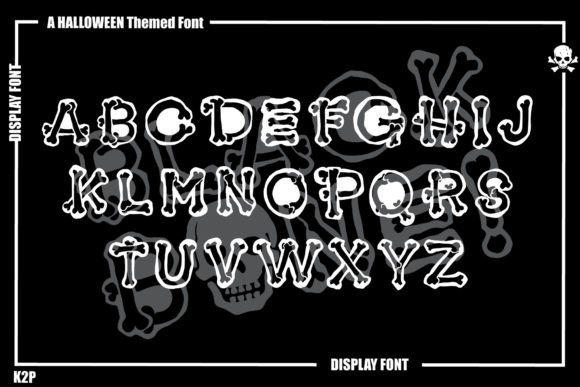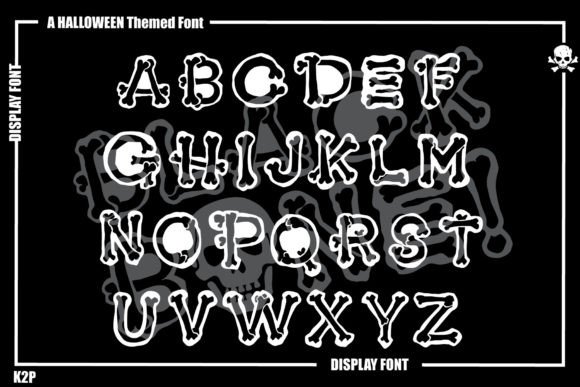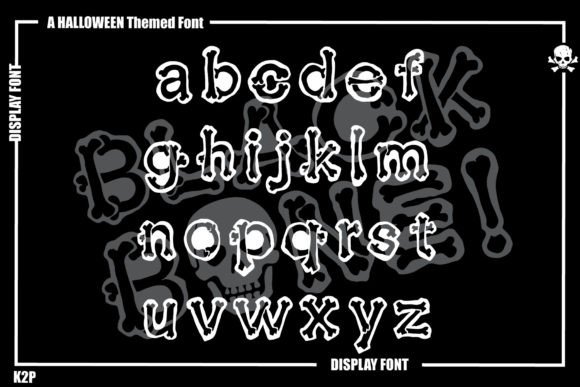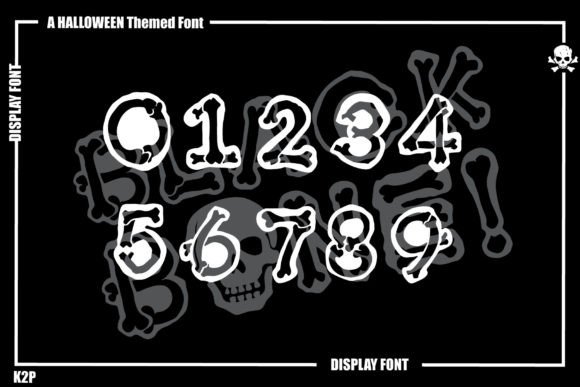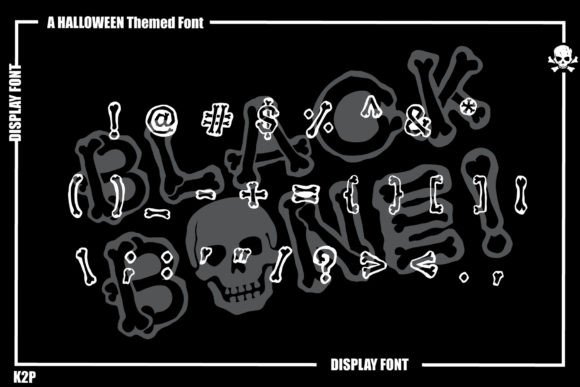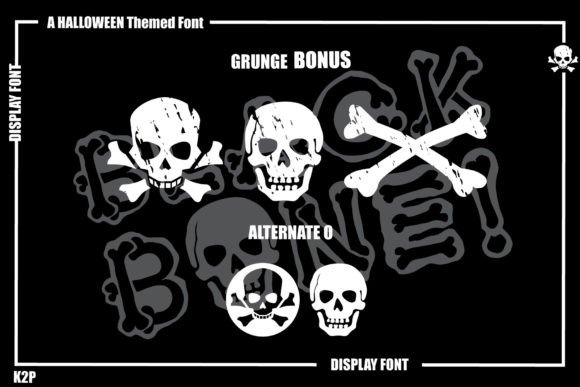
Unleashing Your Dark Side with Black Bone! Font
You’ve spent hours pouring over a design project, and just as you’re about to hit save, that spark of creativity strikes. You envision a font that screams ‘spooky season’ or ‘quirky cartoon charm.’ Suddenly, your imagination runs wild with possibilities, and you can almost see the perfect font materializing before your eyes.
Enter Black Bone! Font, a delightfully creepy display font that’s perfect for adding a touch of macabre whimsy to your next design project. Whether you’re crafting Halloween-themed decorations, designing a cartoon character, or simply looking to inject some spooky flair into your work, Black Bone! Font is an amazing choice. Its quirky, hand-drawn style makes it a valuable asset for designers seeking to add a unique twist to their creations.
With Black Bone! Font, you’ll be able to tap into your inner creative and bring your most imaginative ideas to life. So why settle for a generic font when you can unleash your dark side with this versatile and captivating typeface?
Designer Review: Black Bone! Font
I’ve had the chance to work with the Black Bone! font, and I must say, it’s a unique and eye-catching choice. ✨ The font’s distressed, gothic aesthetic adds a touch of edginess to any design, making it perfect for music, horror, or dark-themed projects.
- ✨ The font’s versatility shines in various font sizes and styles, from bold headings to subtle body text.
- ✨ Black Bone! supports a wide range of languages, including English, Spanish, French, and more.
- ✨ The font is highly customizable, allowing designers to adjust the weight, opacity, and color to suit their design needs.
However, there are some limitations to consider. ⚠️ The font’s distressed look can be overwhelming in large quantities, and some characters may not be perfectly aligned, which can affect the overall typography.
Overall, I think Black Bone! is a great addition to any designer’s toolkit. While it may not be suitable for every project, it’s perfect for those looking to add a touch of darkness and edginess to their designs. With a little finesse, designers can unlock the full potential of this unique font.
The “Black Bone!” font is ideal for use in bold, edgy, or gothic-inspired designs. Some common use cases include:
- Creating a spooky or eerie atmosphere in Halloween-themed designs.
- Adding a touch of sophistication and elegance to luxury branding designs.
- Creating a bold and attention-grabbing headline or title.